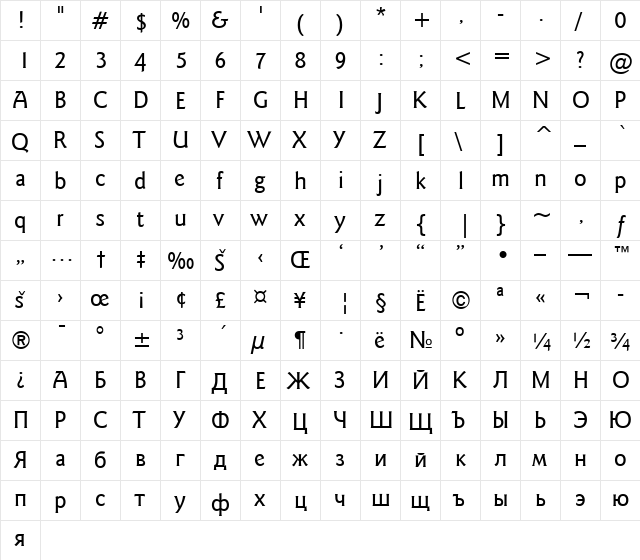
Gubernia TYGRA Regular
Design Context for Gubernia TYGRA Typeface
Gubernia TYGRA takes a measured approach to typography — its balanced proportions and neutral character make it a reliable workhorse for both digital and print work.